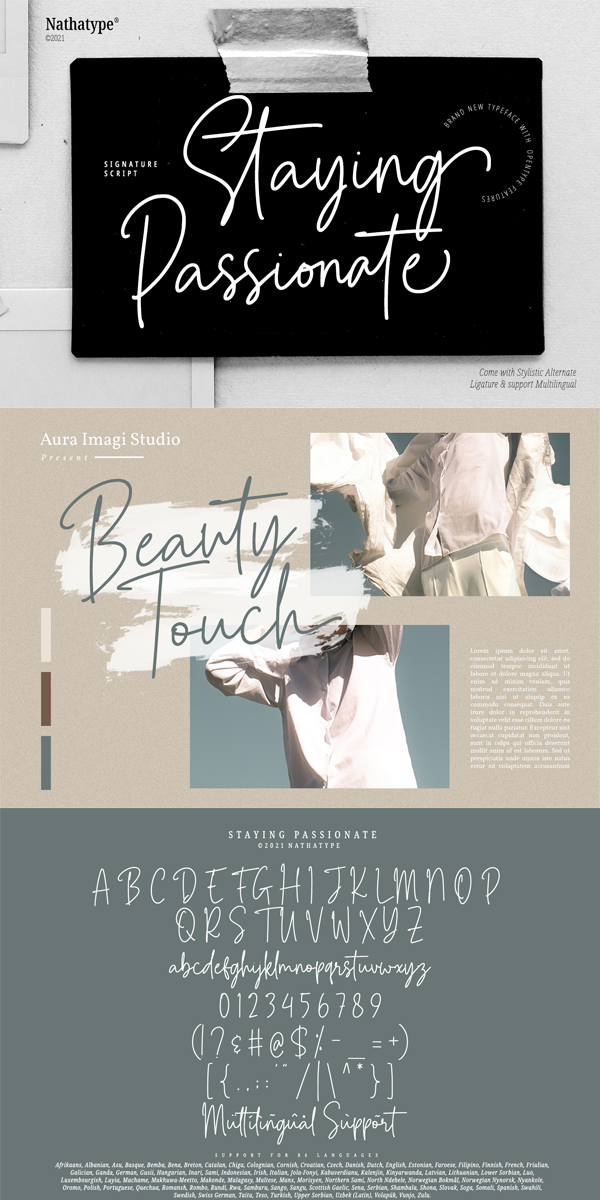
About Staying Passionate
Staying Passionate, a Script Font, is a beautifully handcrafted font that’ll make your guests excited and elevate your projects! Every stroke, and curve was created to entice happiness and elegance. Use it to create standout headings, promote your online sales, Instagram quotes, and even printed materials like business cards, t-shirts, or invitations.
Staying Passionate font includes Multilingual Options to make your brandings globally acceptable. See the previews above to get to know how to use them. Happy designing
-Standard Ligatures
Support Language :
Afrikaans, Albanian, Asu, Basque, Bemba, Bena, Breton, Catalan, Chiga, Colognian, Cornish, Croatian, Czech, Danish, Dutch, English, Estonian, Faroese, Filipino, Finnish, French, Friulian, Galician, Ganda, German, Gusii, Hungarian, Inari Sami, Indonesian, Irish, Italian, Jola-Fonyi, Kabuverdianu, Kalenjin, Kinyarwanda, Latvian, Lithuanian, Lower Sorbian, Luo, Luxembourgish, Luyia, Machame, Makhuwa-Meetto, Makonde, Malagasy, Maltese, Manx, Morisyen, Northern Sami, North Ndebele, Norwegian Bokmålm, Norwegian Nynorsk, Nyankole, Oromo, Polish, Portuguese, Quechua, Romansh, Rombo, Rundi, Rwa, Samburu, Sango, Sangu, Scottish Gaelic, Sena, Serbian, Shambala, Shona, Slovak, Soga, Somali, Spanish, Swahili, Swedish, Swiss German, Taita, Teso, Turkish, Upper Sorbian, Uzbek (Latin), Volapük, Vunjo, Zulu